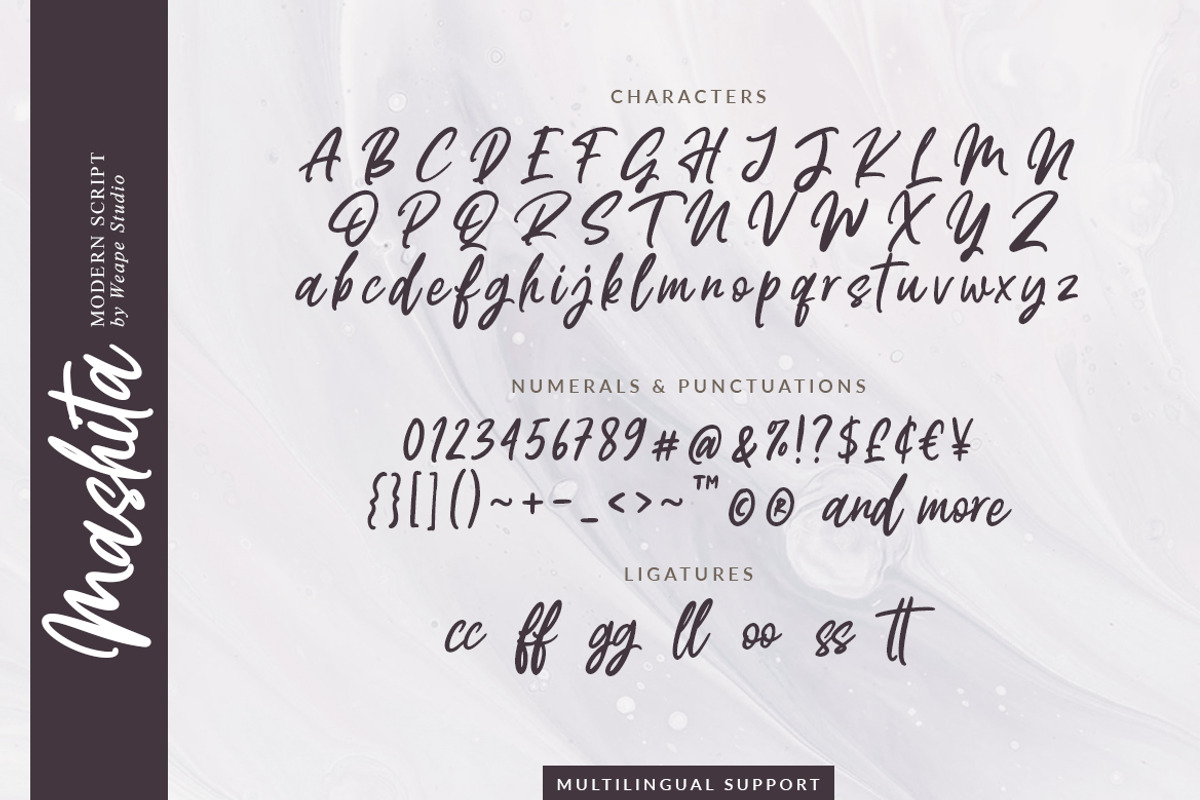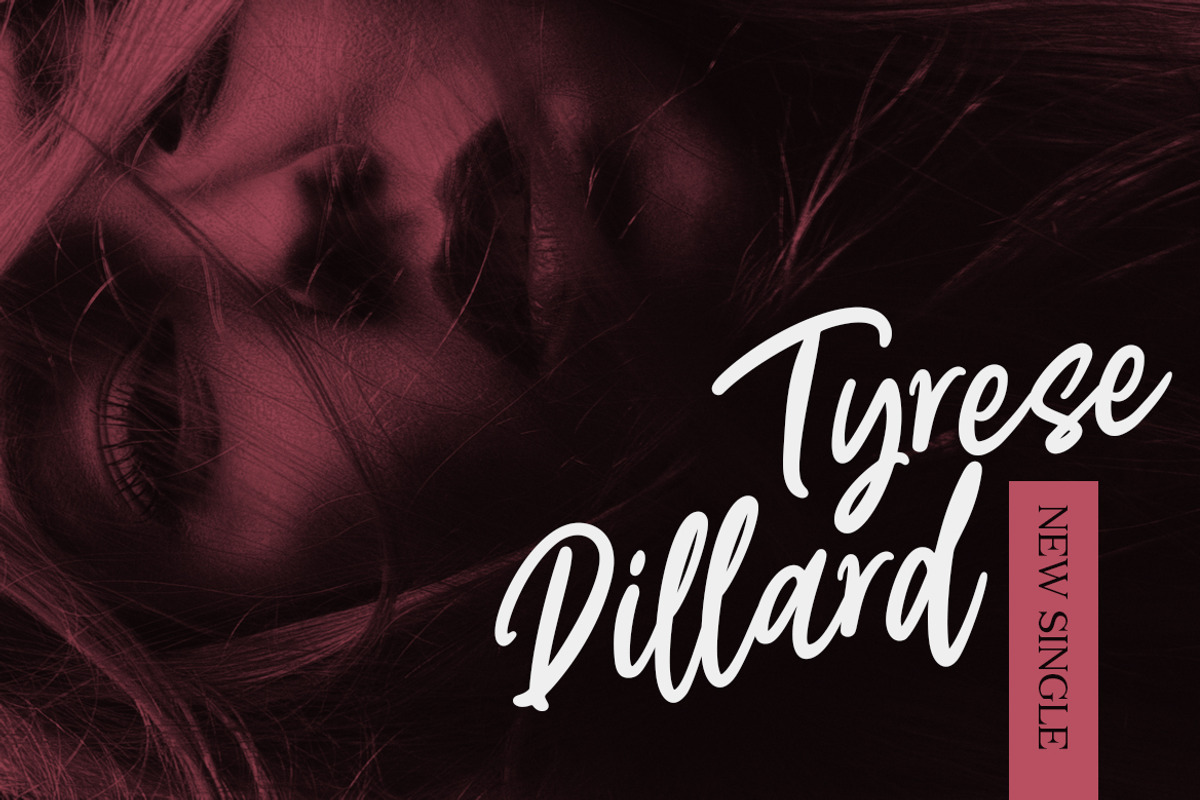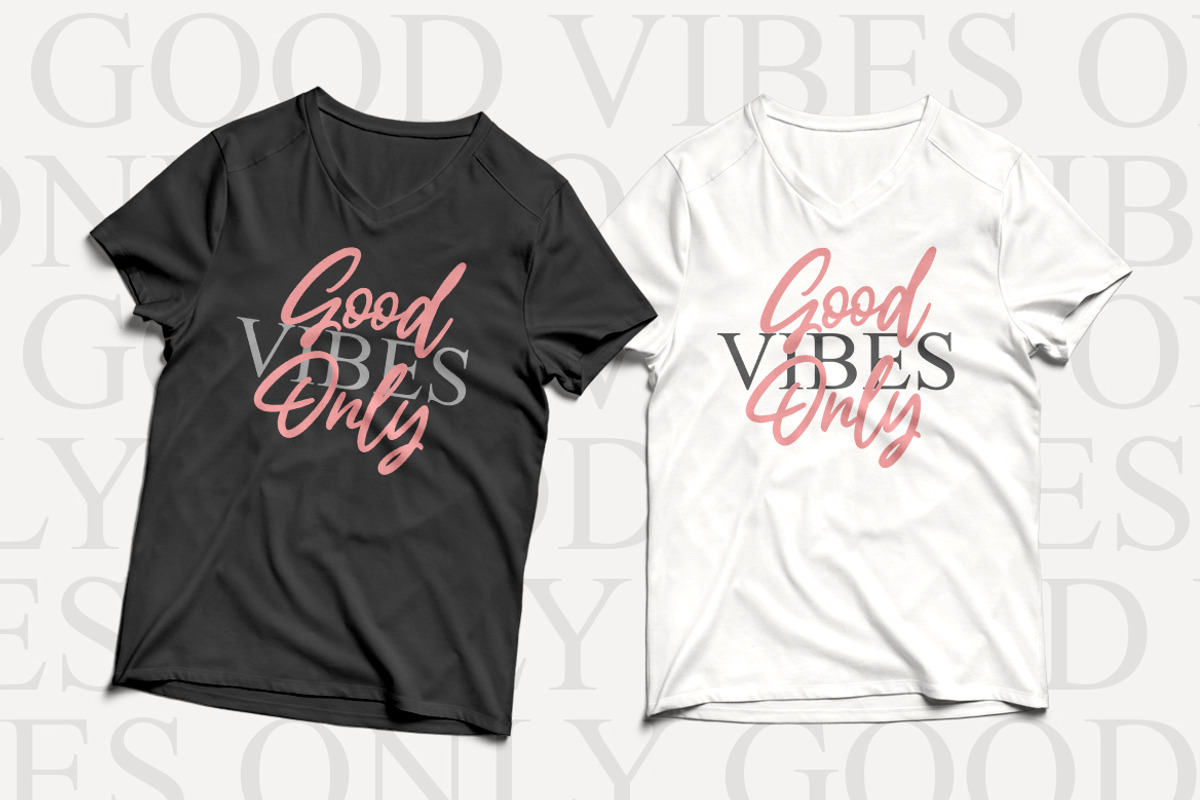
Mashita
Introducing Mashita Brush Font, with the stroke of hand quick. You can use and enjoy Mashita, for promotional material and anything.
And this font perfect for signature, logo, handwritten quotes, product packaging, fashion magazine, photography, merchandise, branding projects, poster, social media post, book cover, flyer, and advertising. You can create easily and make it as if you wrote it yourself.
All fonts containing upper & lowercase characters, numerals, ligatures and a large range of punctuation.